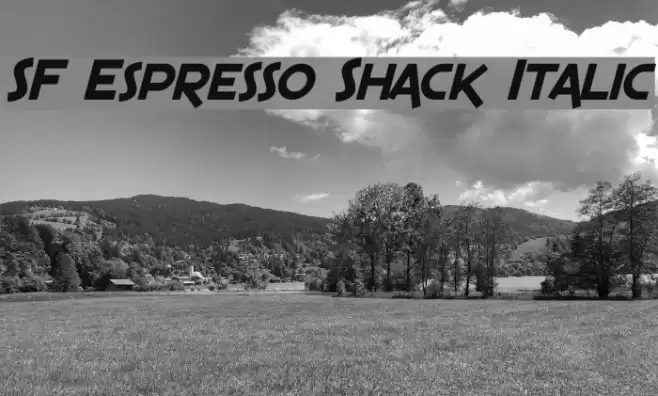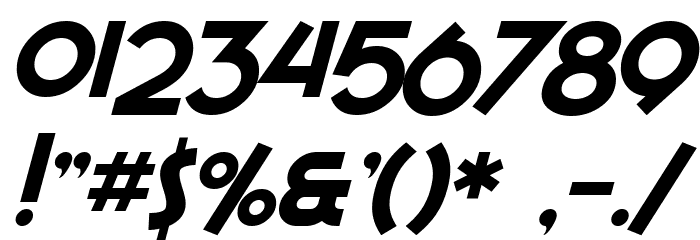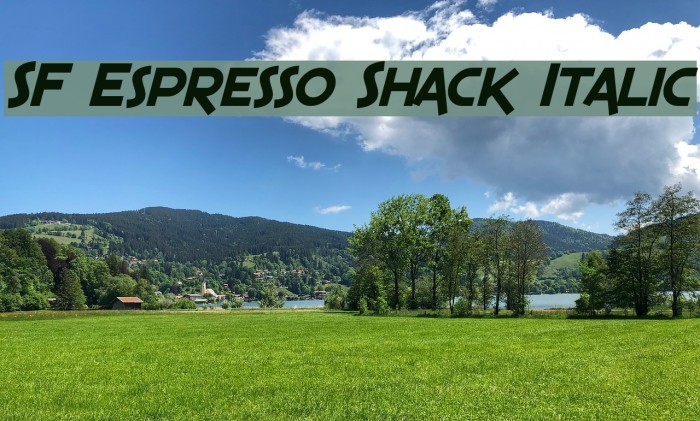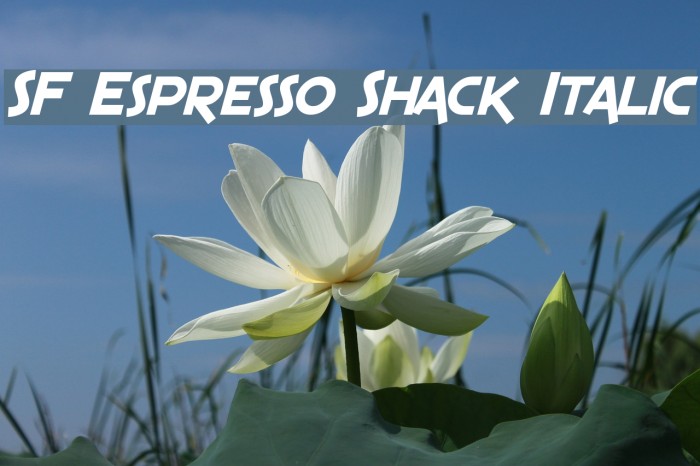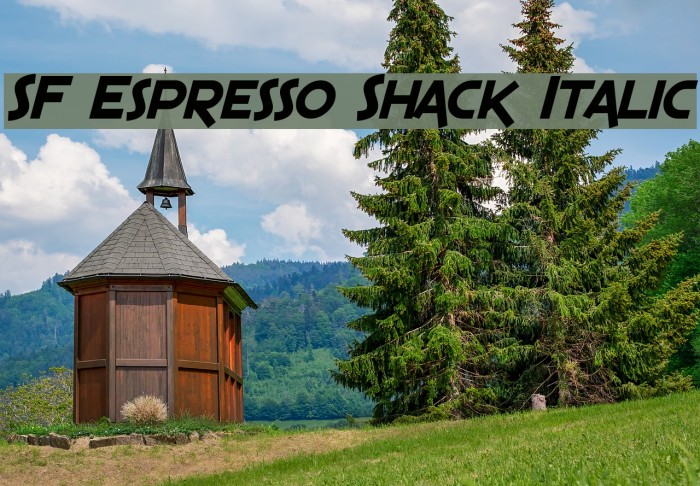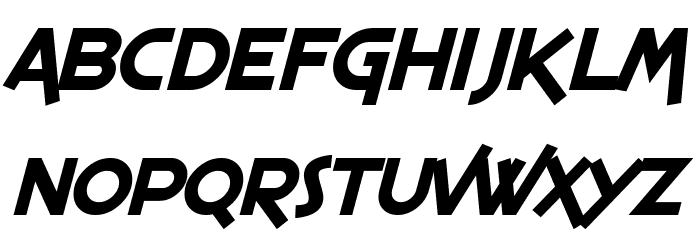
SF Espresso Shack Italic Font
SF Espresso Shack Italic Description
This font features a dynamic and energetic style with a pronounced italic slant, giving it a sense of motion and speed. The characters are bold and angular, with sharp edges and a modern flair. The uppercase and lowercase letters maintain a consistent style, with a slight forward tilt that enhances the font's lively appearance. The numbers and special characters follow the same design principles, ensuring uniformity across all glyphs. This font's boldness and unique style make it stand out, perfect for projects that require a strong visual impact.
A bold, italic font with sharp, angular characters and a dynamic style from Crazy fonts.
- Proposed Projects: Ideal for branding, sports team logos, dynamic posters, and modern advertisements.